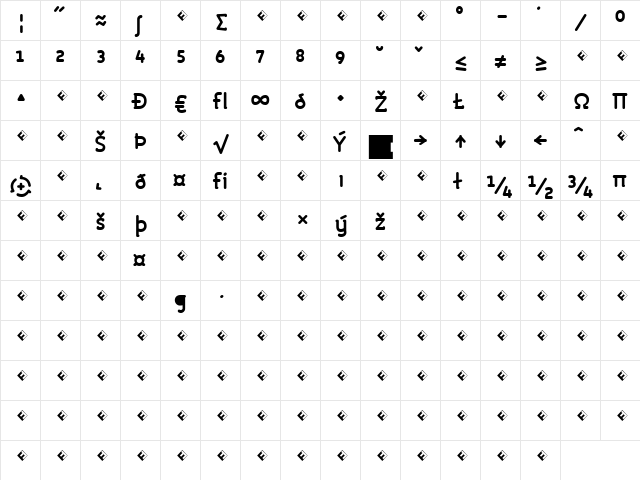
Roice-BoldExpert Regular Font Preview
Roice-BoldExpert Regular
Roice-BoldExpert Regular Font Details
| Foundry | Alex Scholing, published by FontShop International for the FontFont library |
Design Context for Roice-BoldExpert Typeface
Roice-BoldExpert is a composed and adaptable typeface that performs quietly and consistently across a wide range of design contexts. Its bold stroke weight gives it real presence on the page.